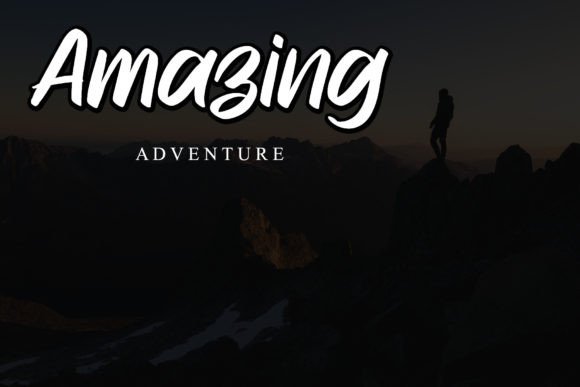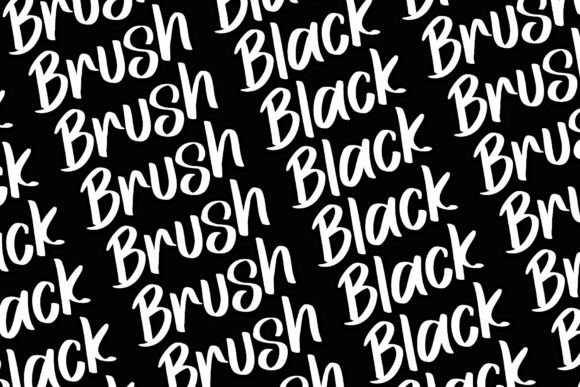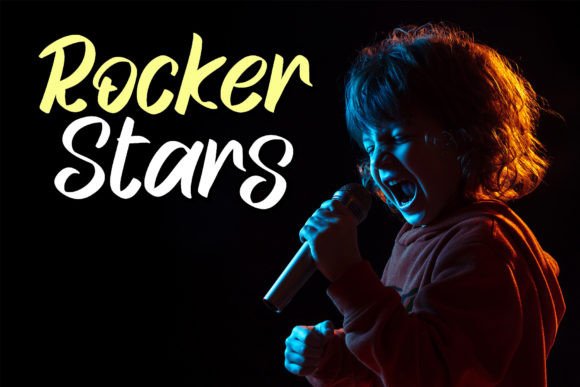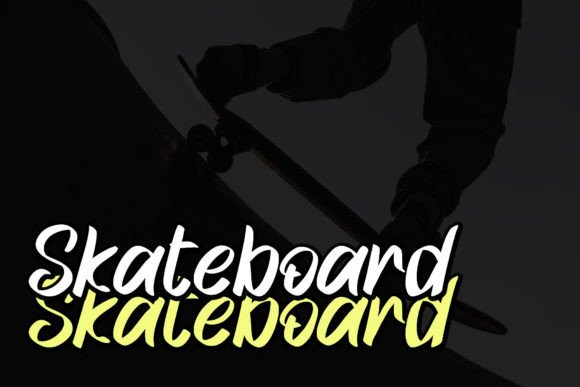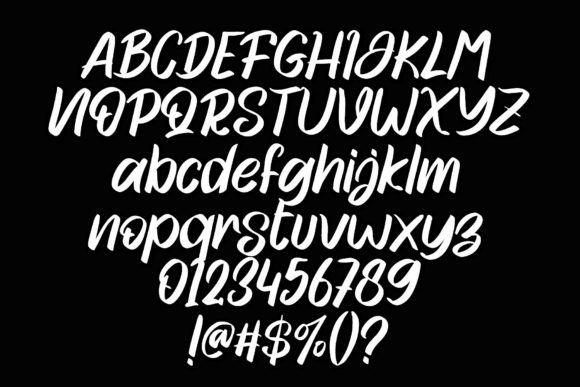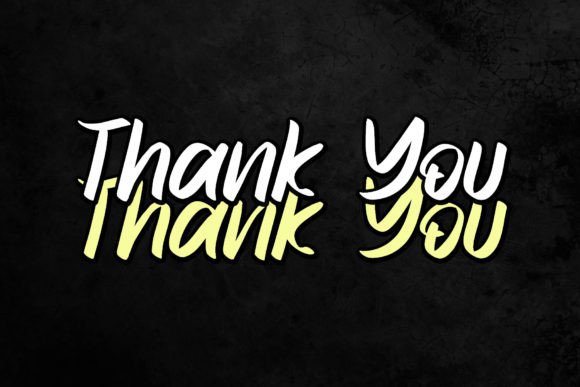
The Perfect Handwritten Touch: Introducing Bomster Font
Have you ever been brainstorming a creative project and suddenly, a spark of inspiration hits you? For designers, that spark often comes in the form of the perfect font. And, for those who crave a handwritten touch, Bomster Font is about to become your new best friend.
Bomster Font is a beautiful, natural handwritten font that brings a sense of warmth and personality to any design. From wedding invitations to logos, this font is perfect for adding a personal touch to your work. Whether you’re a seasoned designer or just starting out, Bomster Font is an invaluable tool that will elevate your designs and set them apart from the crowd.
Bomster Font Key Features
- Size and Resolution: The font comes in 7 different weights, ranging from 200 to 900, allowing for a high degree of customization and flexibility in typography.
- Unique Characteristics: Bomster Font features a distinctive, bold, and playful design, making it perfect for use in headings, titles, and other display typography.
Bomster Font Review
Overall, I think the Bomster font is an interesting addition to the font family. Here are some of its highlights ✨:
- Unique design: The Bomster font has a quirky, playful feel that can be used to add a touch of personality to your designs.
- High-quality glyphs: The font includes a wide range of glyphs, including numbers, punctuation, and special characters, making it suitable for a variety of projects.
However, like any font, the Bomster font also has its limitations ⚠️:
- Not ideal for body text: While the font is great for headlines and titles, it may not be the best choice for large blocks of body text due to its busy design.
- Limited language support: The font may not support all languages, which could be a problem for designers working on international projects.
Overall, I think the Bomster font is a fun and creative option that can add a unique touch to your designs. However, it’s not a one-size-fits-all solution, and designers should carefully consider its limitations before using it in their projects.
Bomster Font is a versatile font that can be used for various designs, including:
- Logo designs
- Branding materials
- Social media graphics
- Print materials